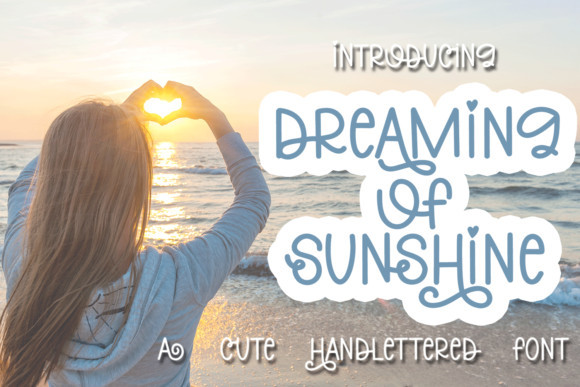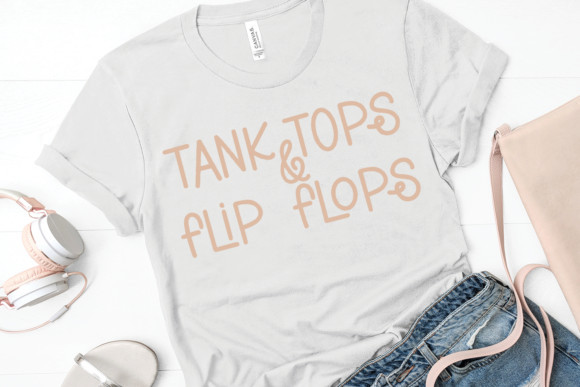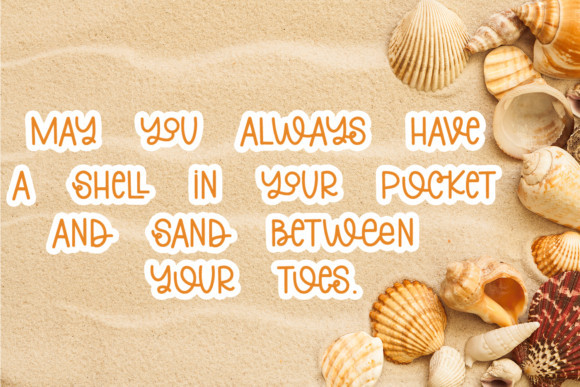
Dreaming of Sunshine Font
Dreaming of Sunshine is a sweet, soft hand-lettered script. The playful rounded characters make it the perfect font for creating stunning crafting projects. Dreaming of Sunshine comes packed with PUA encoded swashes, which will allow you to add a decorative touch within seconds. Fall in love with its authentic feel and use it to create gorgeous wedding invitations, beautiful stationary art, eye-catching social media posts, and cute greeting cards.